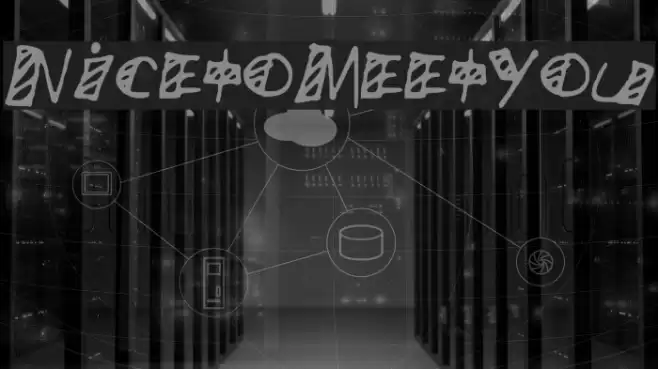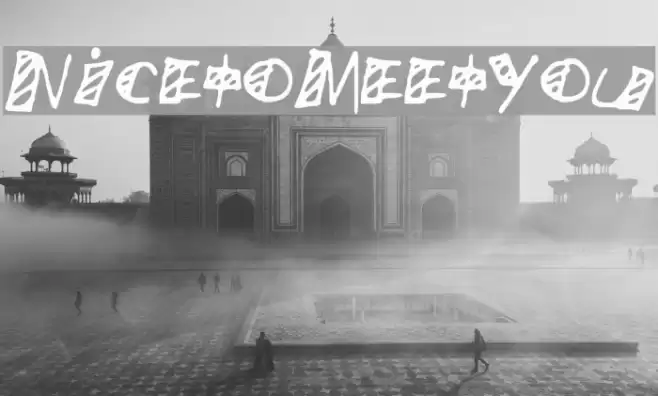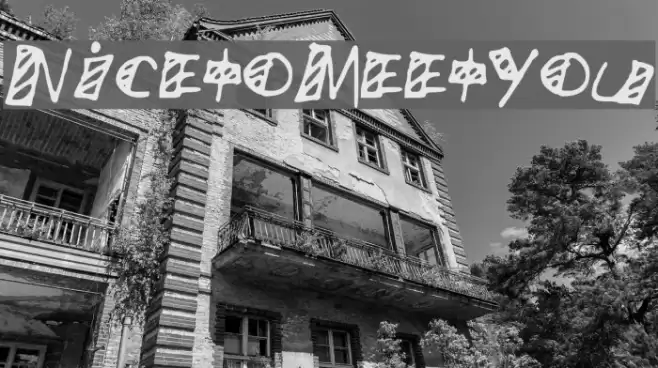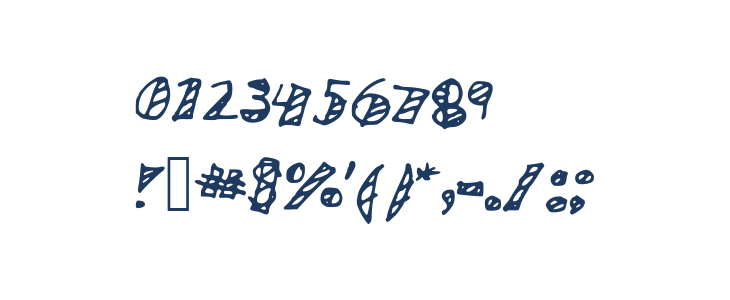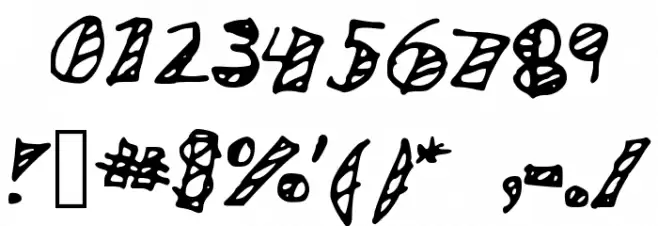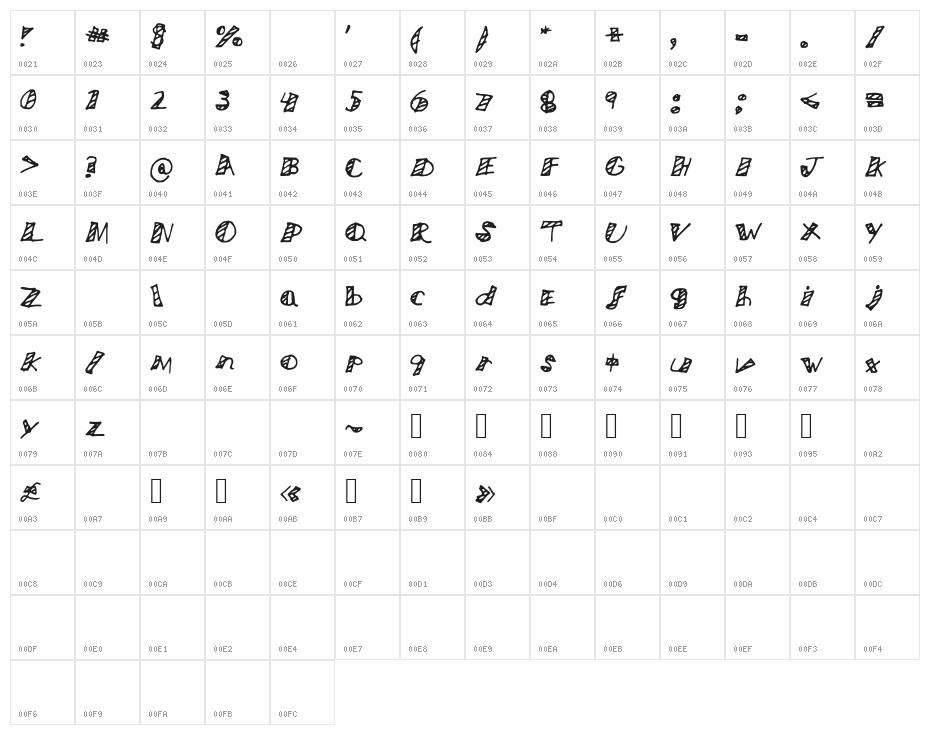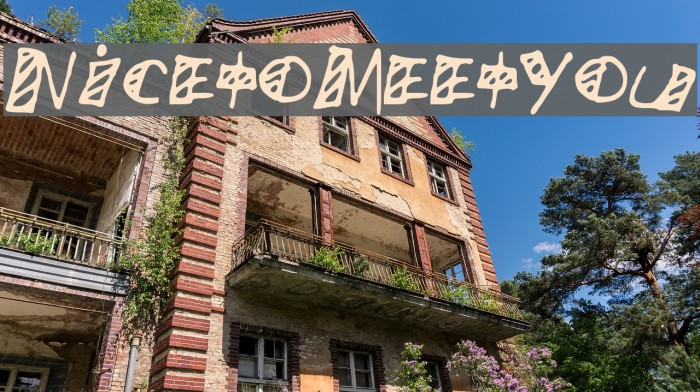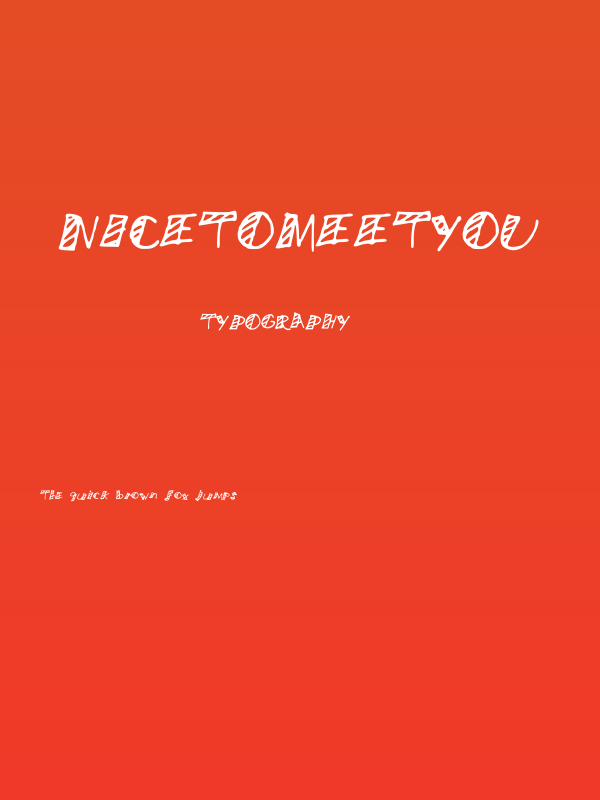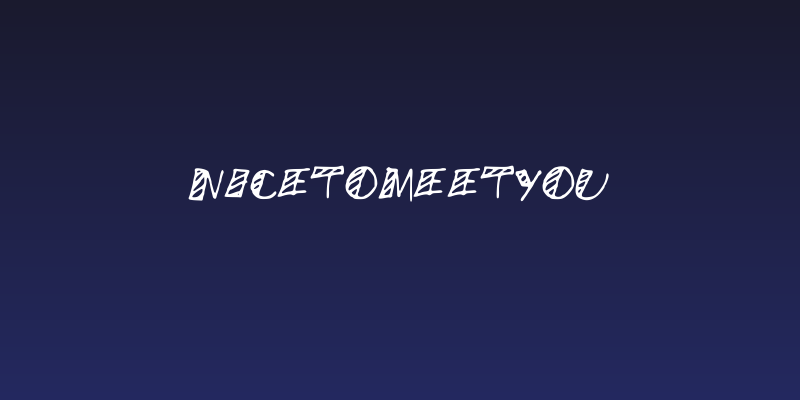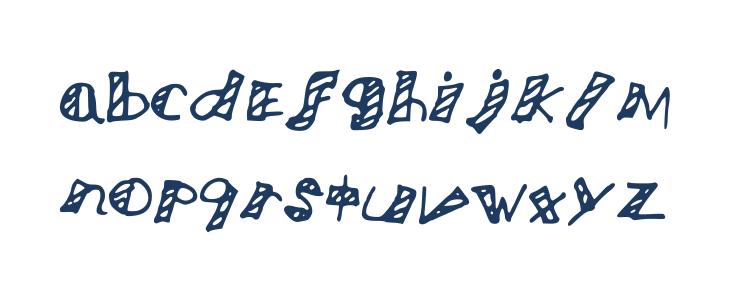
NicetoMeetYou Font
NicetoMeetYou Description
This font features a playful and whimsical design with a hand-drawn aesthetic. Each character is uniquely crafted with a bold, uneven stroke that gives it a dynamic and energetic feel. The letters have a distinct slant and irregularity, adding to the casual and informal style. The uppercase and lowercase letters maintain a consistent style, with the uppercase being slightly more pronounced. Numbers and special characters follow the same playful theme, making them suitable for creative and artistic projects. The overall appearance is lively and engaging, perfect for capturing attention.
A playful, hand-drawn font with bold, irregular strokes and a whimsical style from Cartoon fonts.
- Proposed Projects: Ideal for children's books, creative posters, playful branding, and artistic invitations.